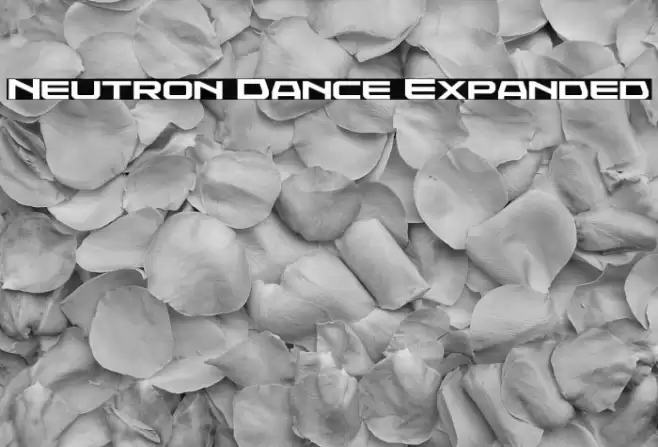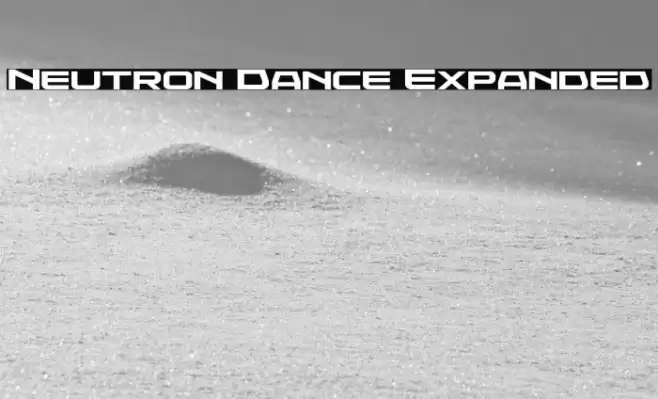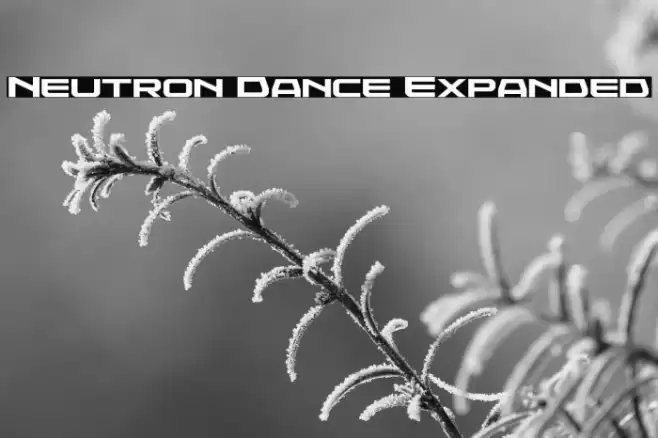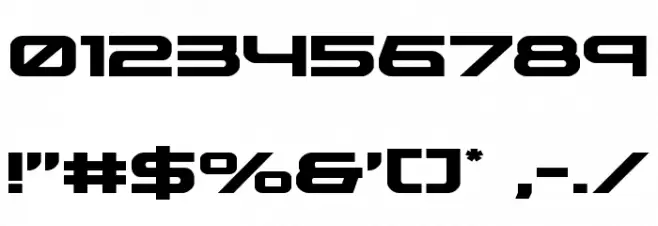
Neutron Dance Expanded Font
Neutron Dance Expanded Description
This font features a bold and futuristic design with geometric shapes and sharp angles. The characters are uniformly expanded, giving a wide and spacious appearance. The uppercase and lowercase letters maintain a consistent style, with a modern and sleek look. The numerals and special characters are designed to match the overall aesthetic, providing a cohesive and unified appearance. The font's distinct style makes it suitable for projects that require a contemporary and cutting-edge feel.
A bold, futuristic font with geometric shapes and expanded width from Uncategorized fonts.
- Proposed Projects: Ideal for technology branding, sci-fi movie posters, video game titles, and modern advertising campaigns.